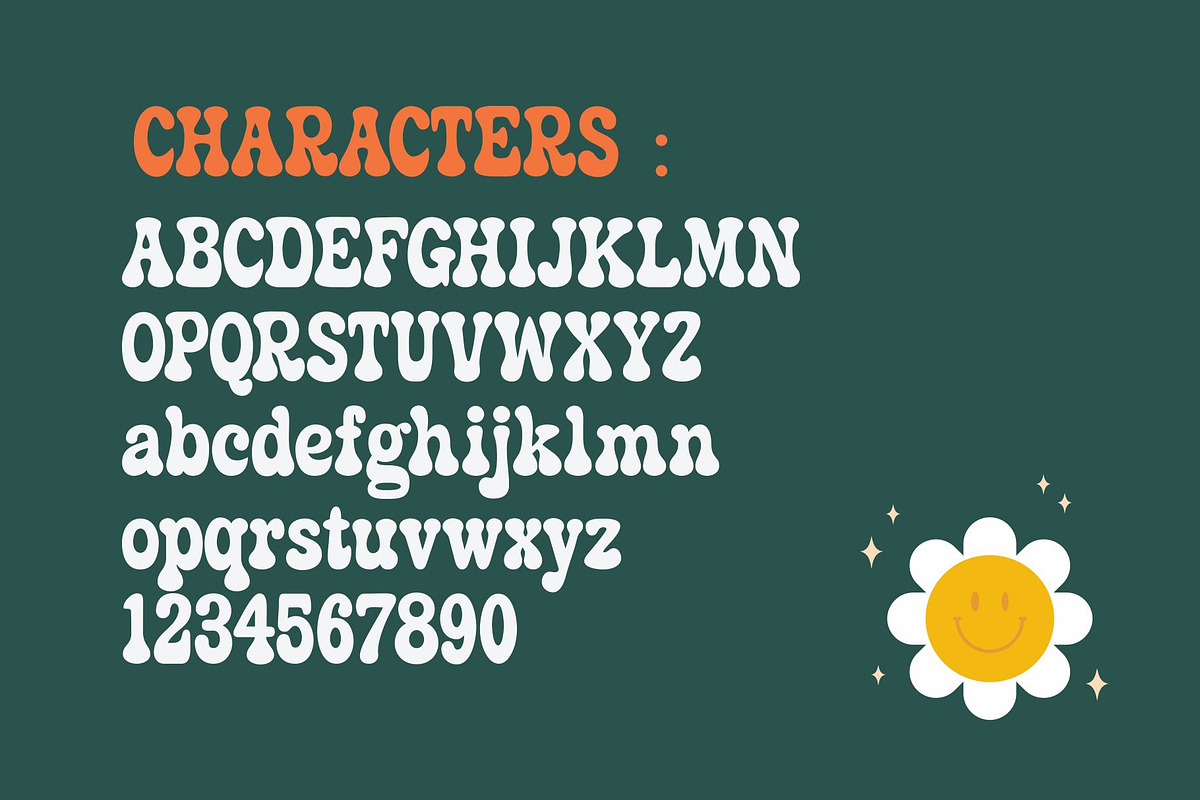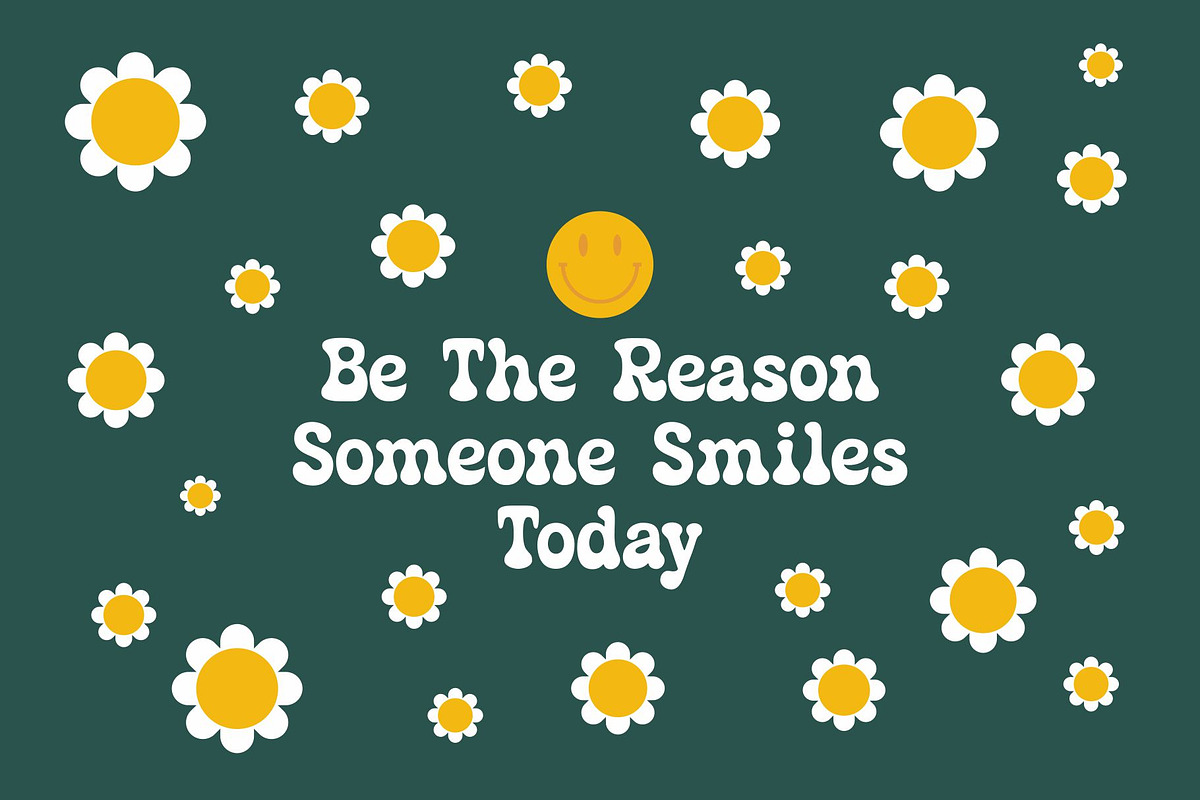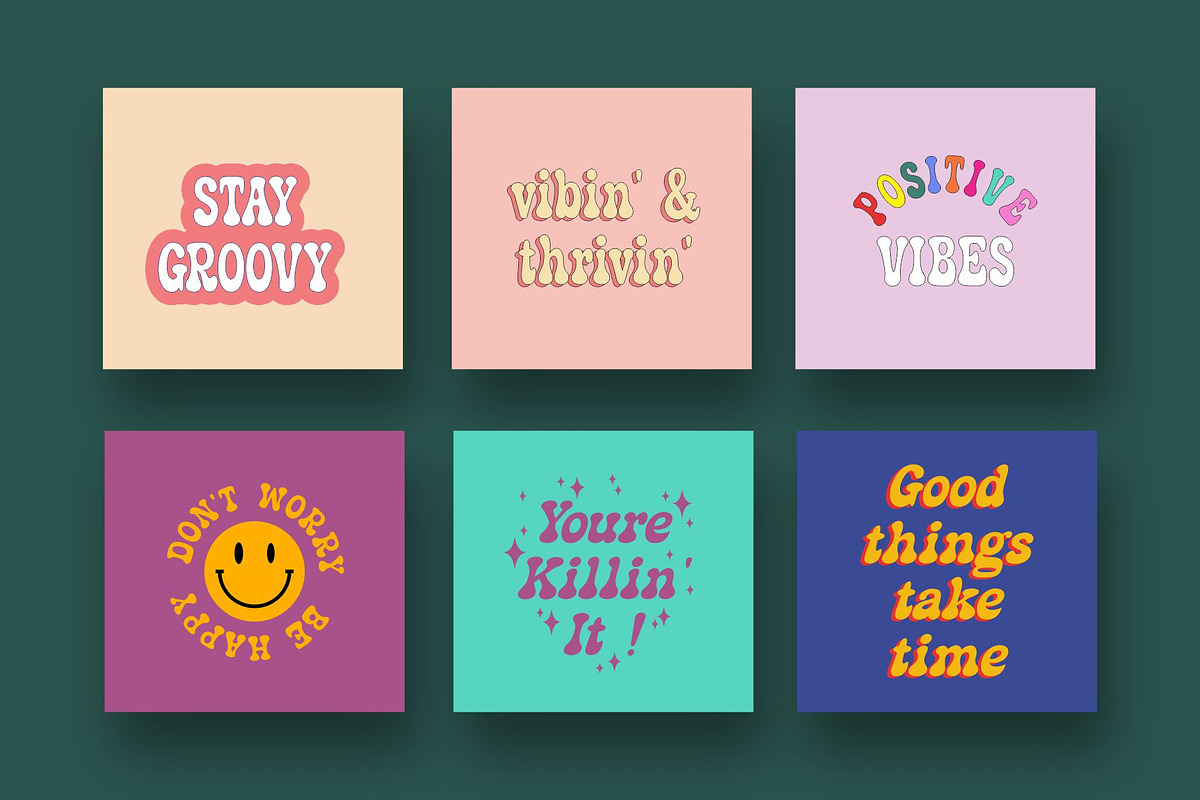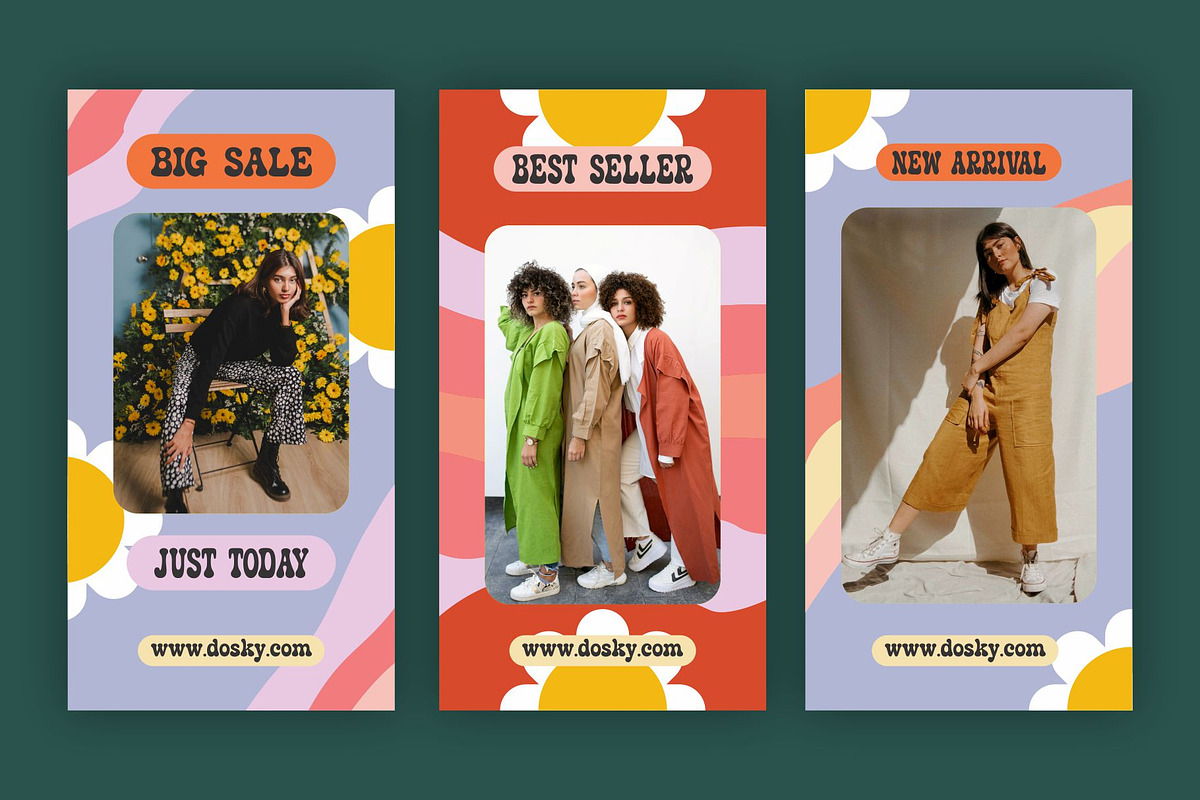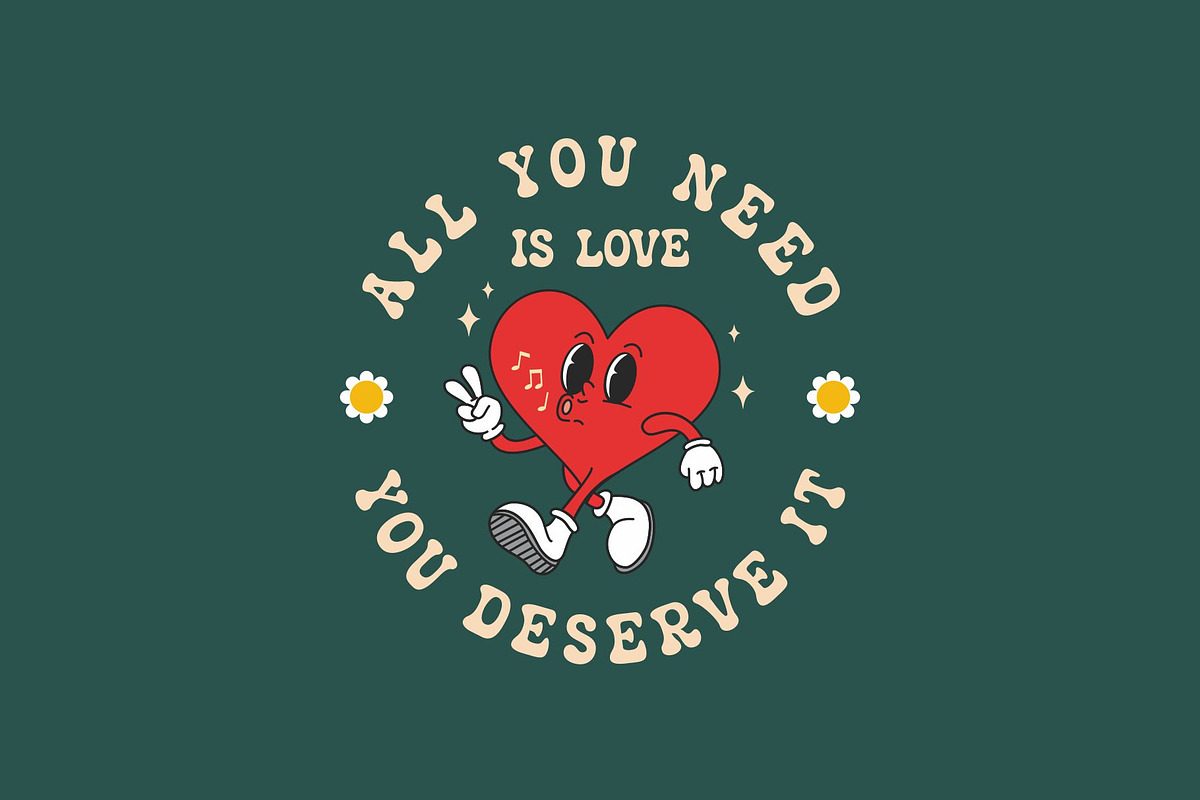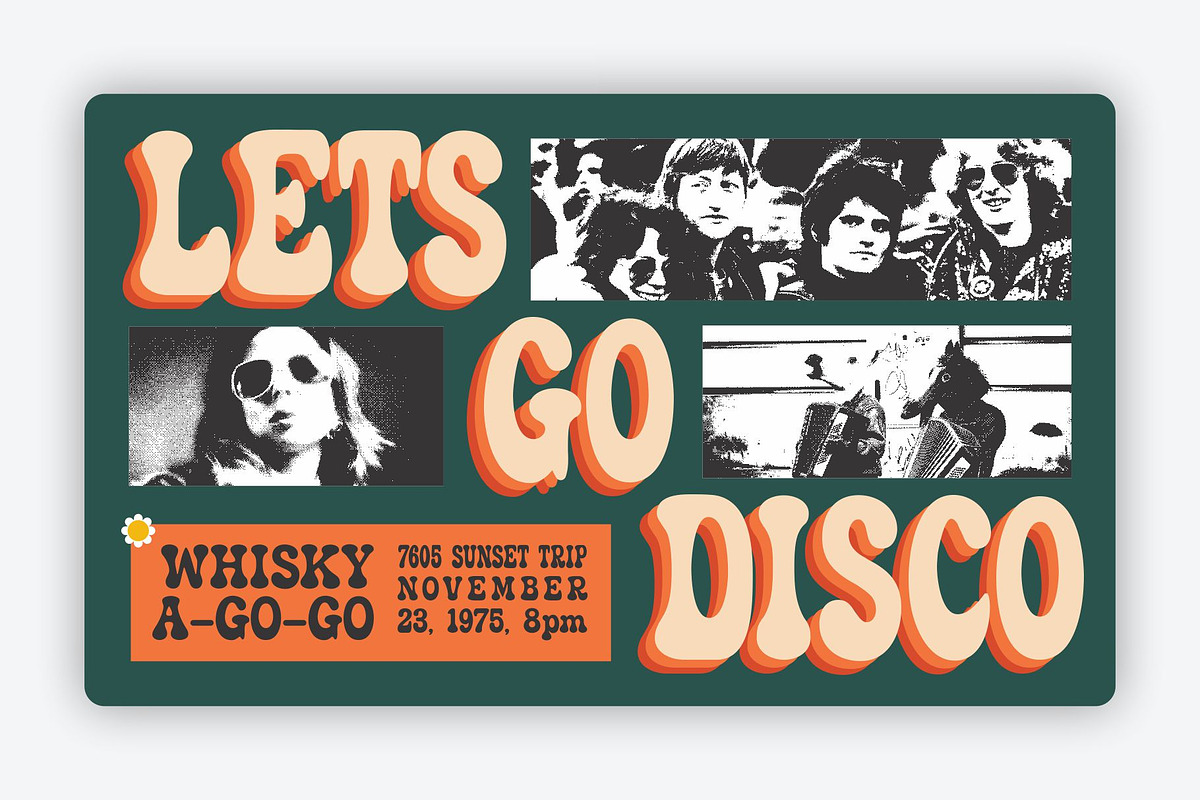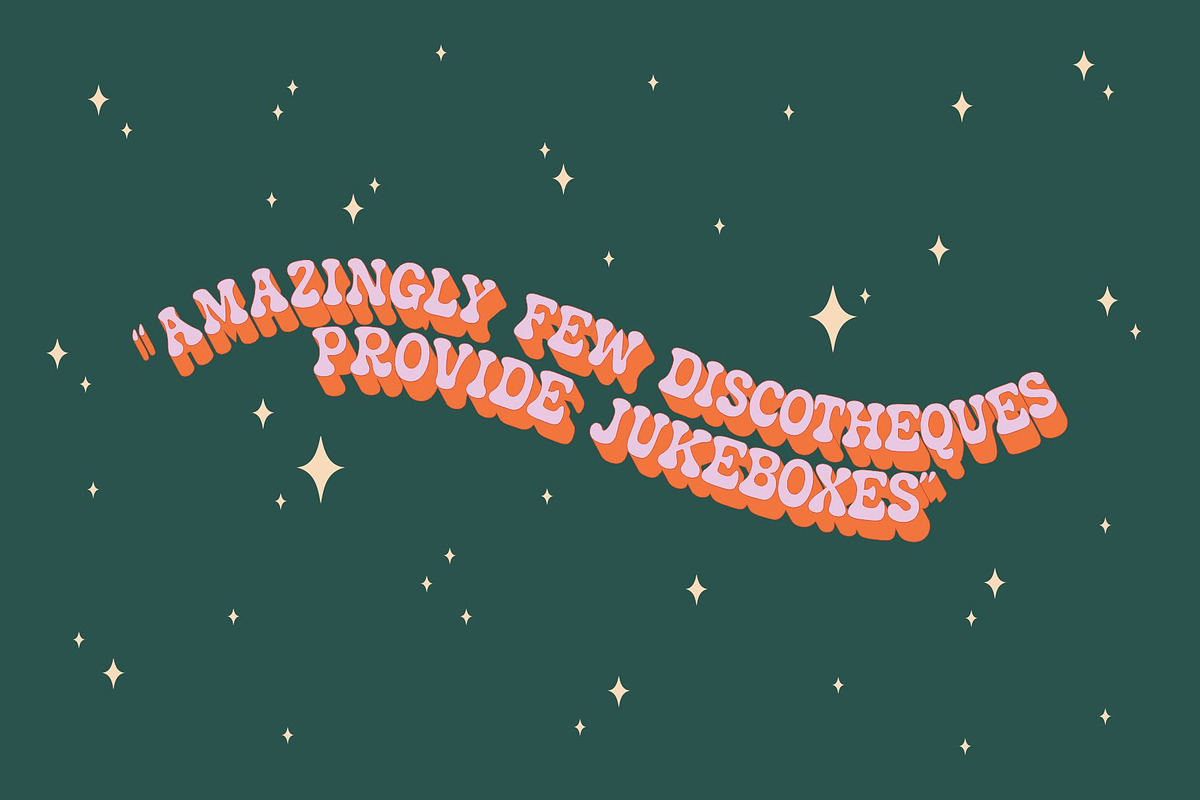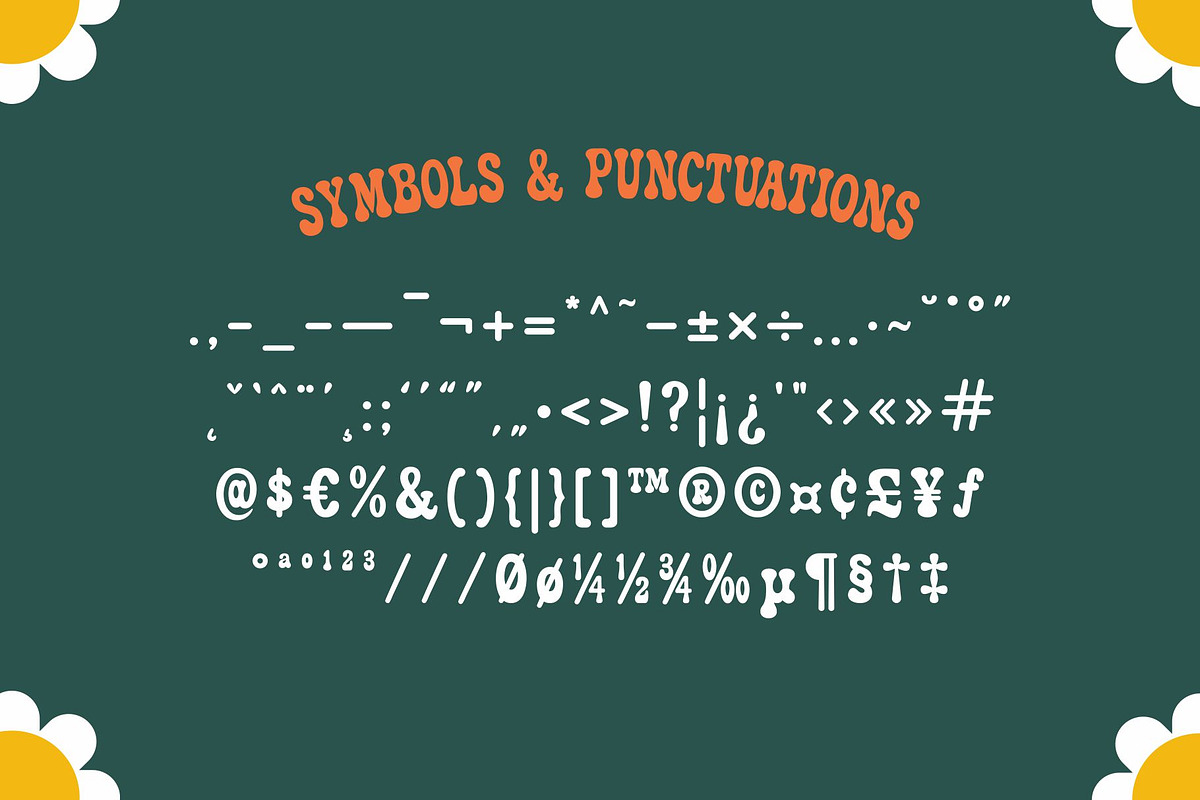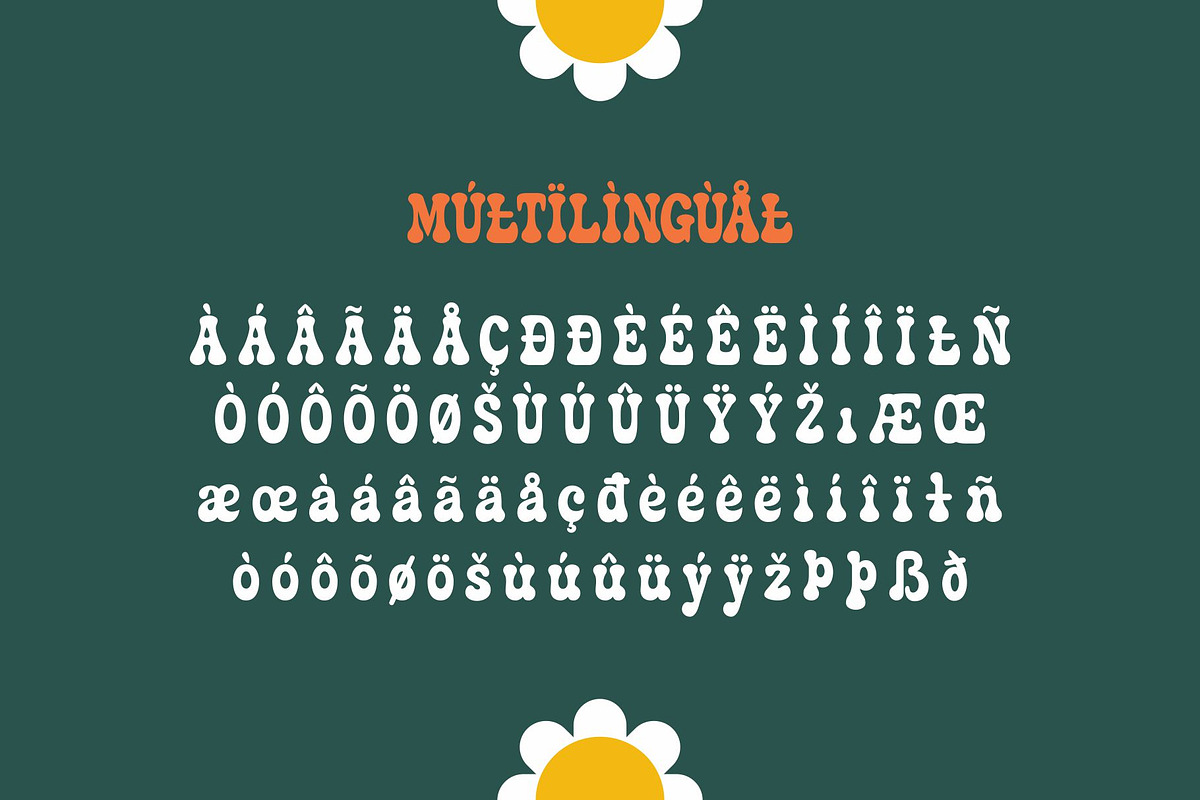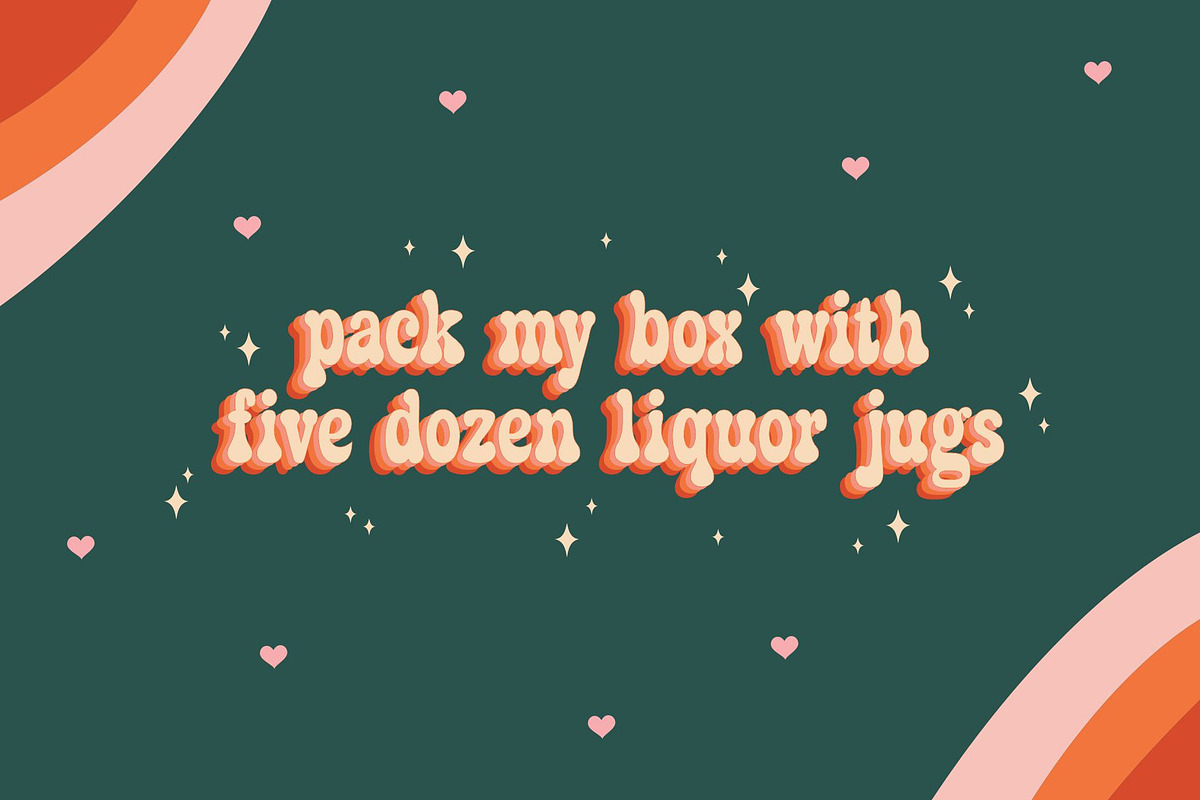
Dosky - Groovy Typeface
Dosky is a groovy, retro, bubble font. It have a big and bubbly anatomy. Inspired by 70s vibe and culture. The font is perfect to create a project that have a retro feeling but have a little bit modern and modest on it. Dosky support multilingual language also came with 6 font style : Reguler, Condensed, Expanded and Oblique styles. Dosky can be used as a fun or a formal kind of project. It can easily be matched to your projects, and good for communicating your brands.